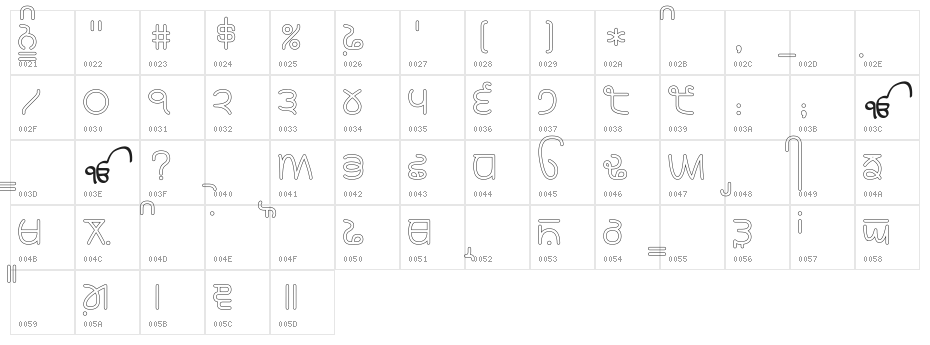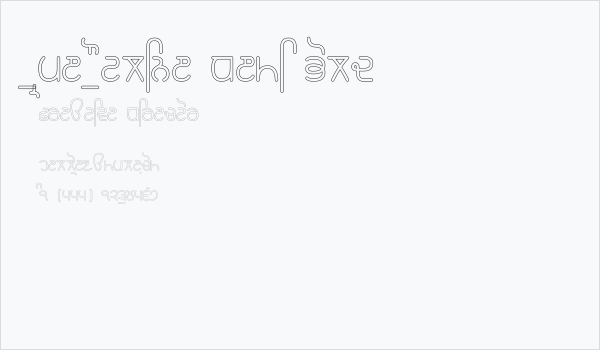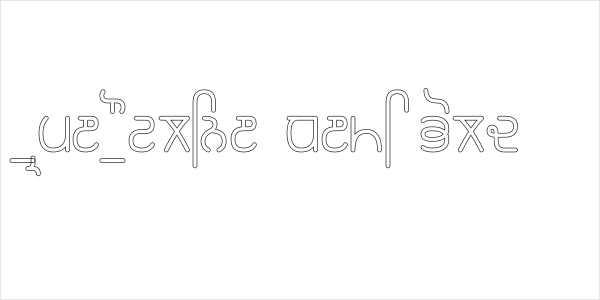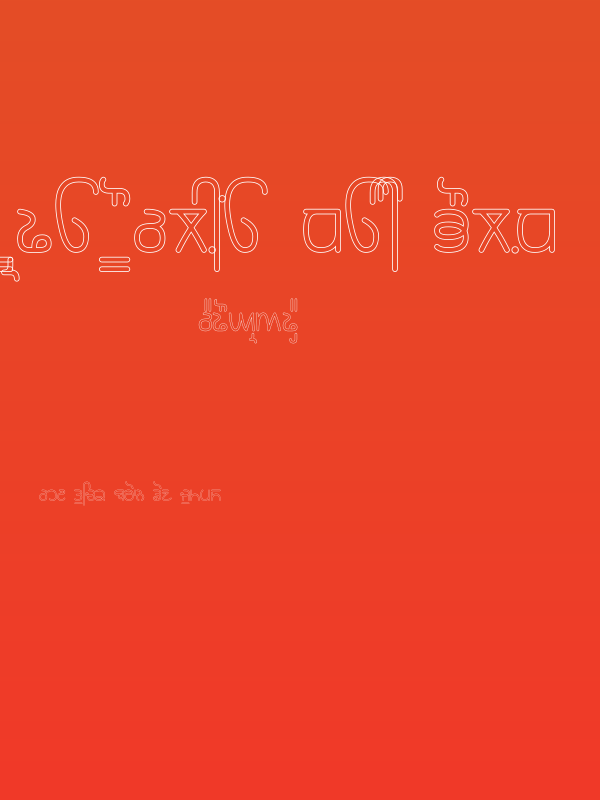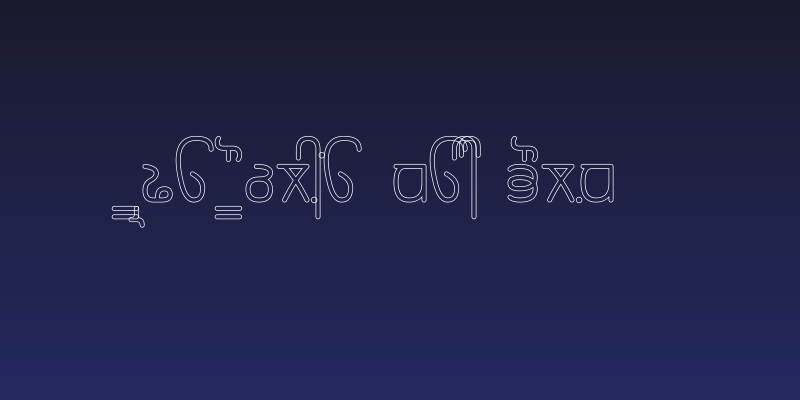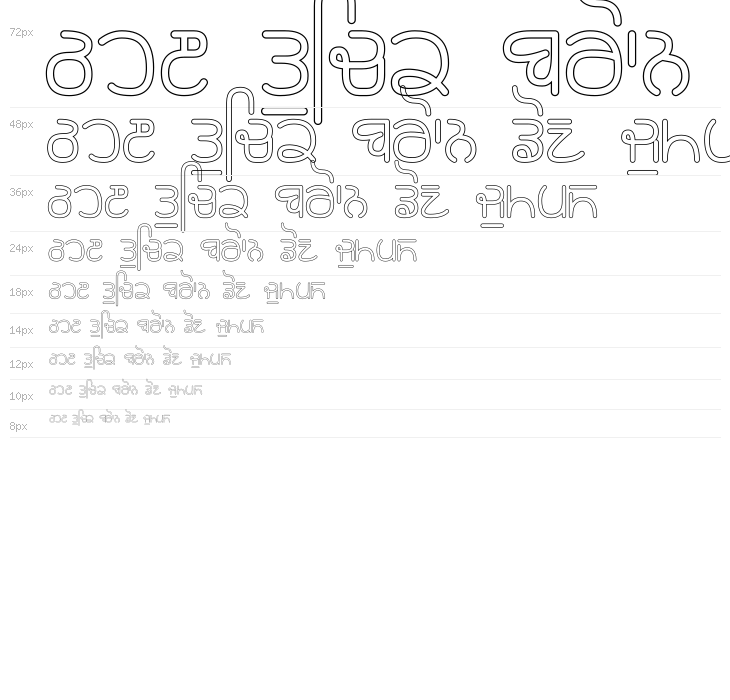
Rupe Outline Demi Bold Font
Rupe Outline Demi Bold Description
This font features a unique outline style with a demi-bold weight, characterized by its geometric and futuristic design. The characters are crafted with a continuous line that forms the outer edges, creating a hollow effect. This design gives the font a modern and sleek appearance, making it stand out in any design project. The uppercase and lowercase letters maintain a consistent style, with rounded edges and a uniform line thickness. The numerals and special characters are designed to match the overall aesthetic, ensuring a cohesive look across all text elements.
| Proposed Projects | Ideal for futuristic branding, tech-related projects, modern posters, and digital media. |